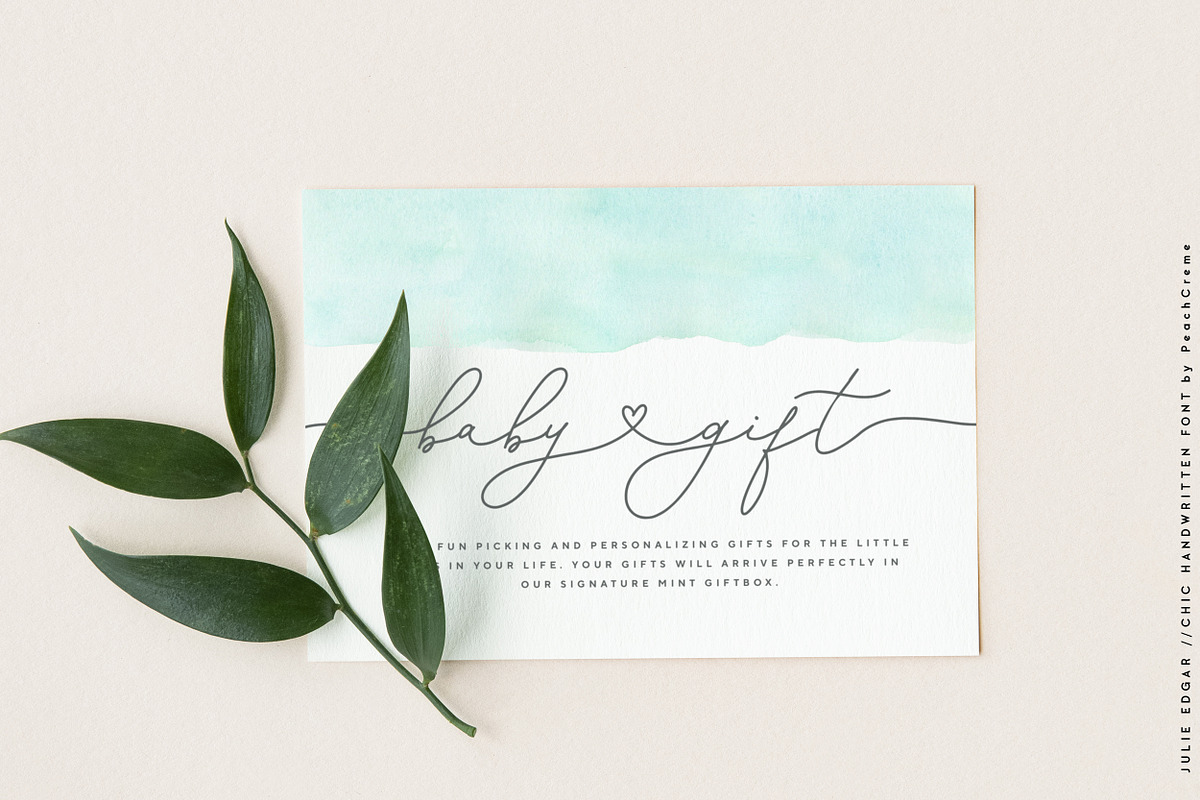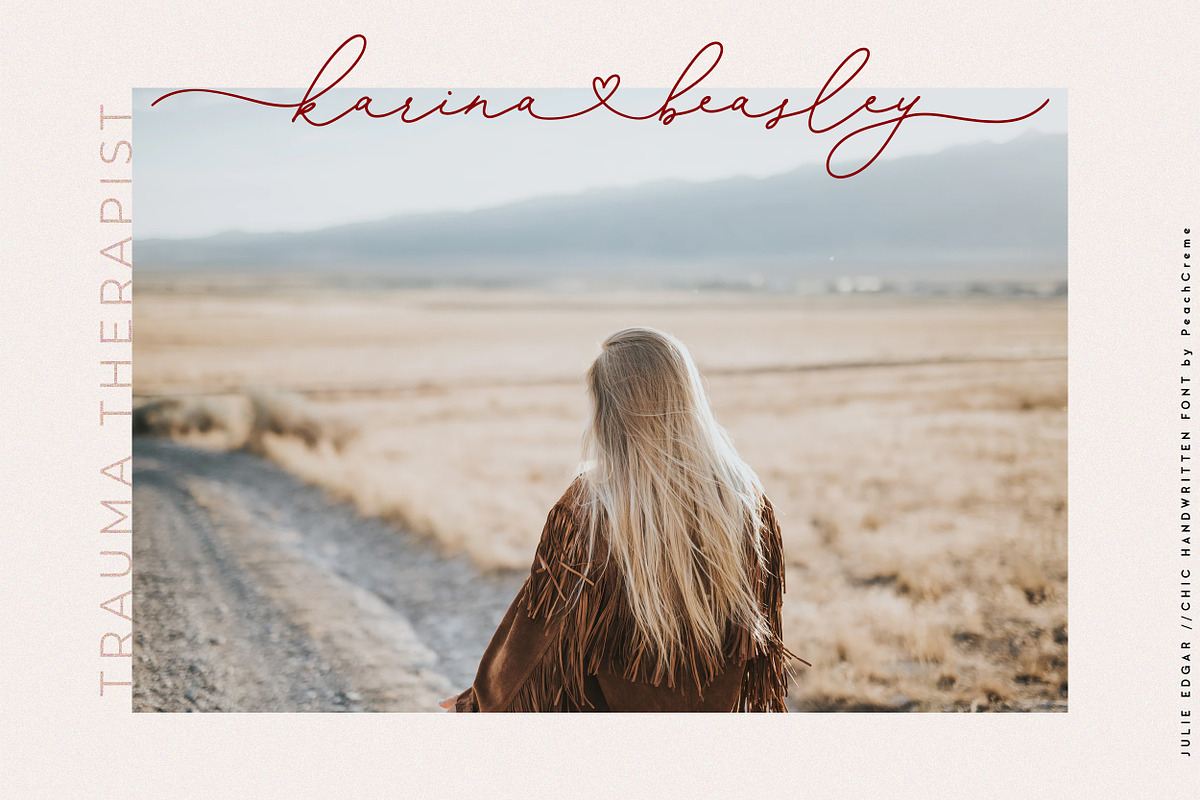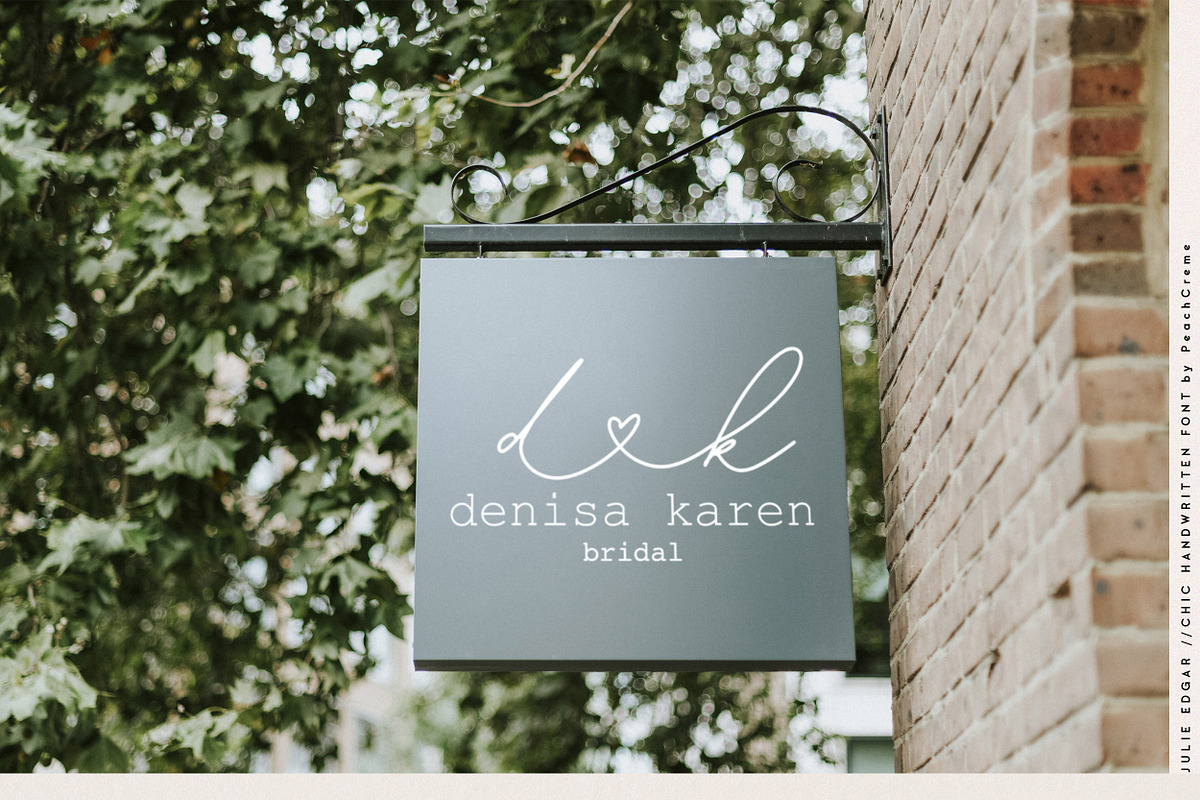
Julie Edgar is a charming handwritten calligraphy typeface, perfect for branding, wedding invitations, and greeting cards. Designed with elegance in mind, it includes a full set of uppercase and lowercase letters, multilingual support, numerals, punctuation, and stylish ligatures. It also features graceful beginning and ending swashes, along with beautifully connected “hearty” lowercase letters, adding a seamless and artistic touch to any design.